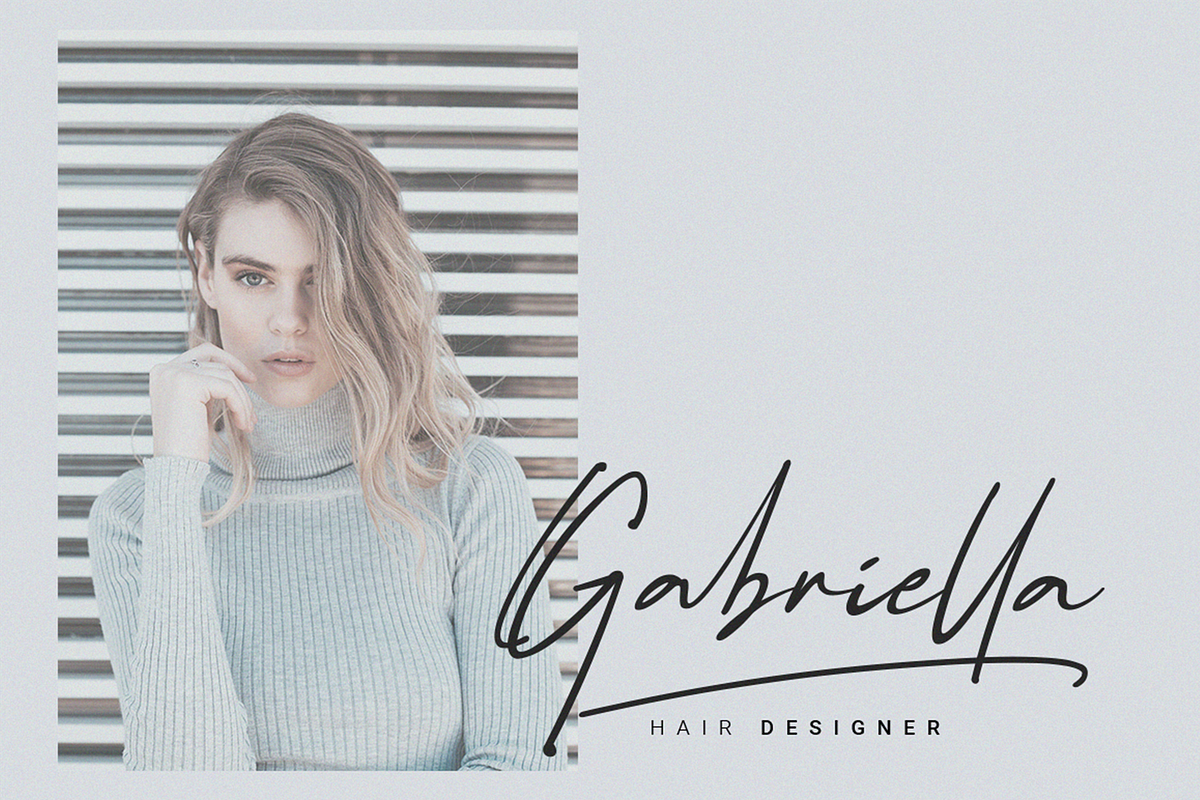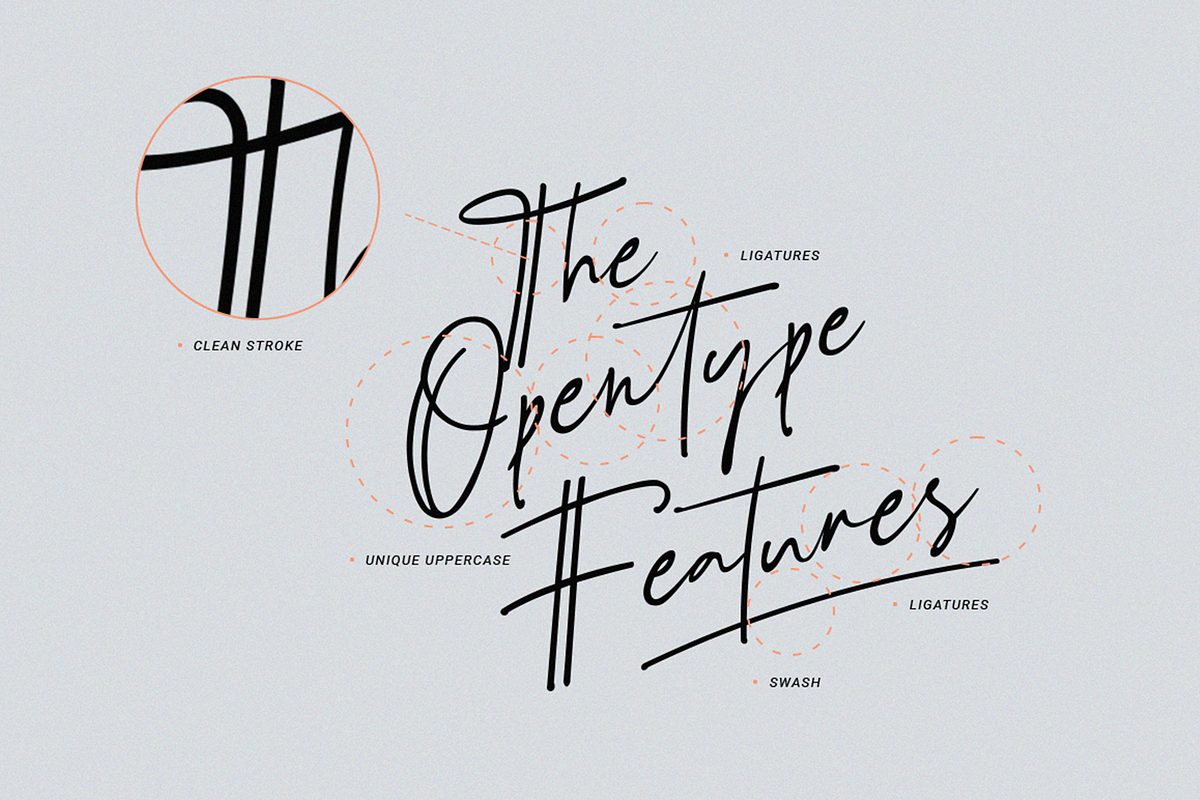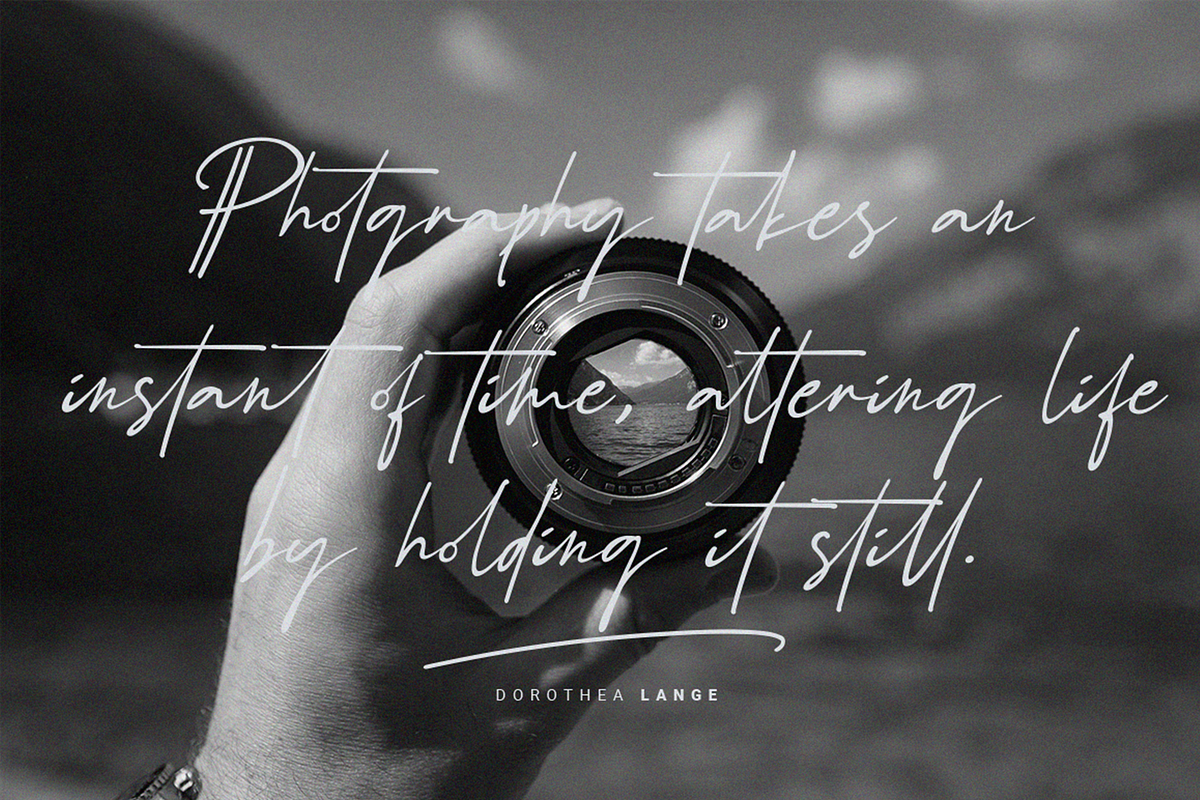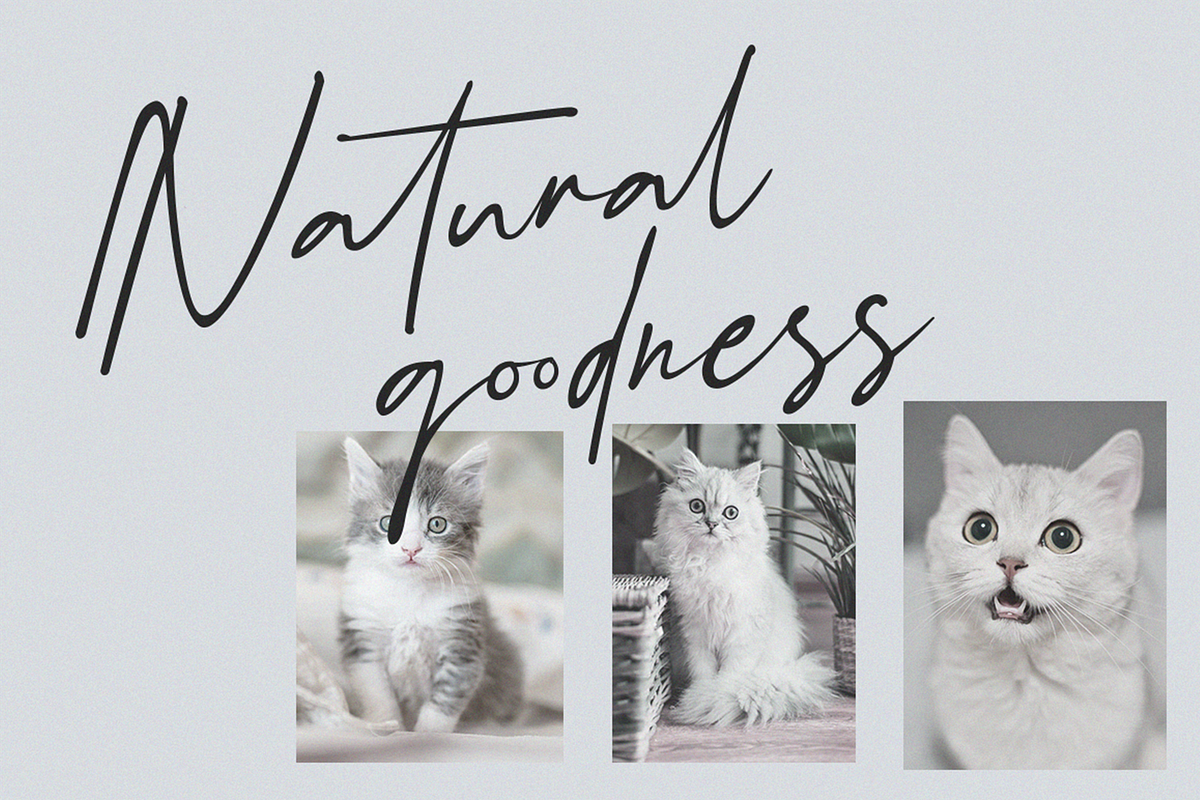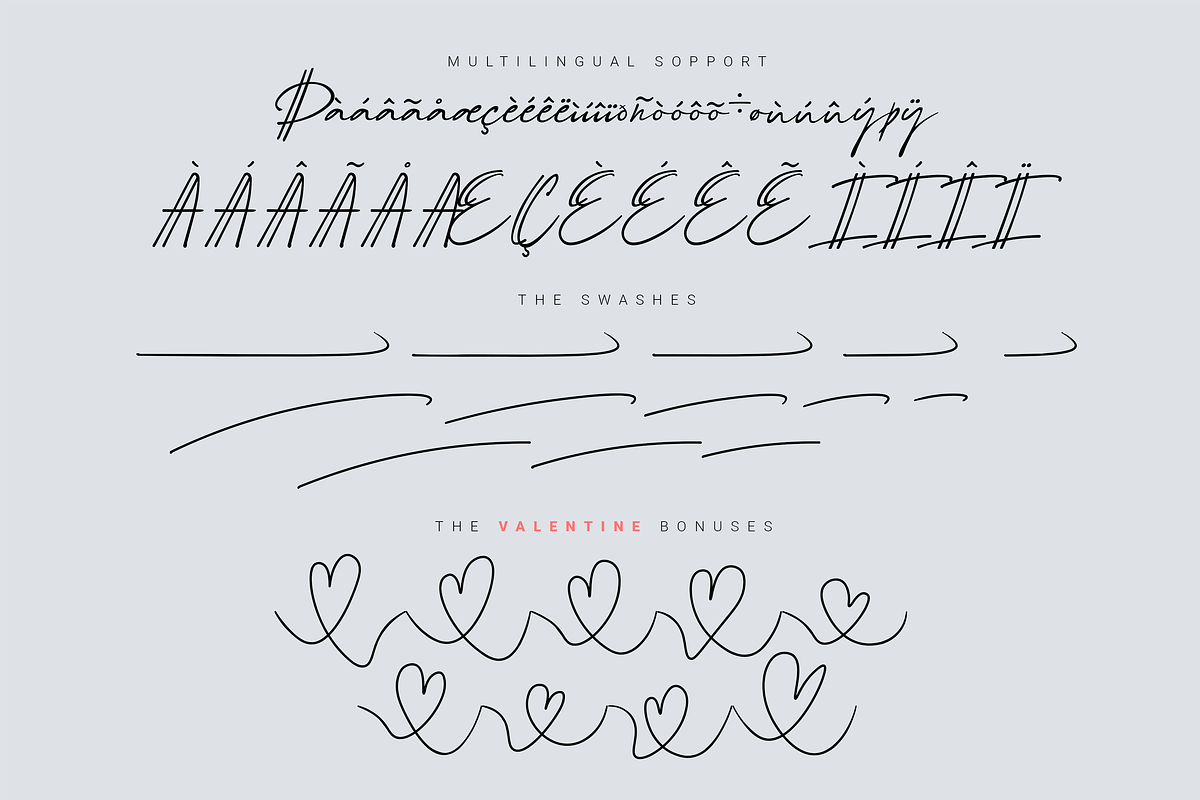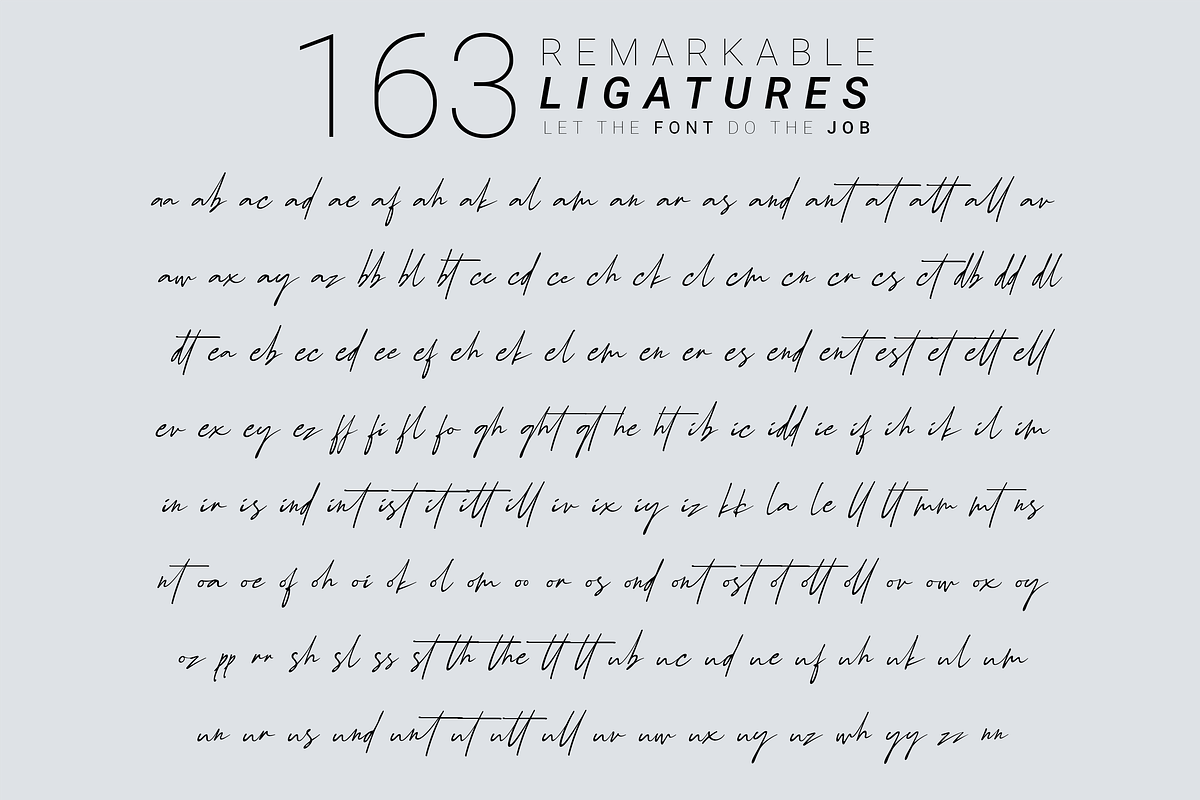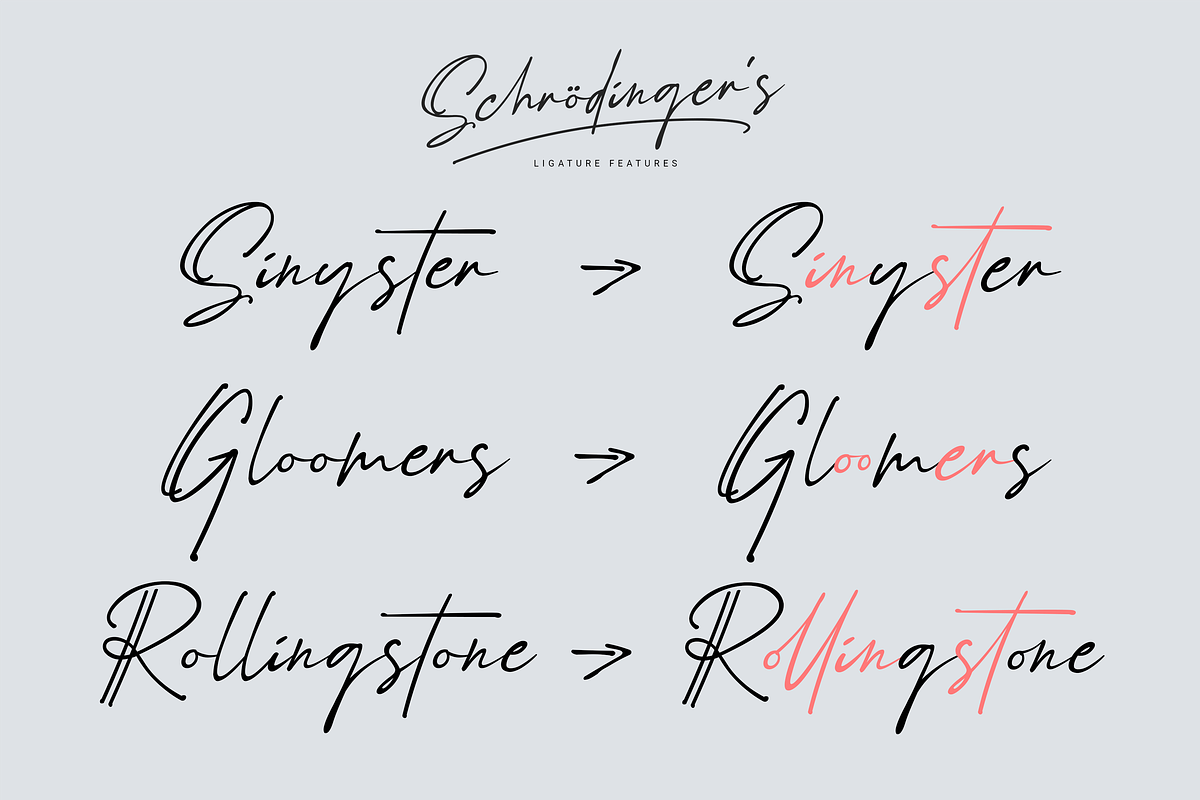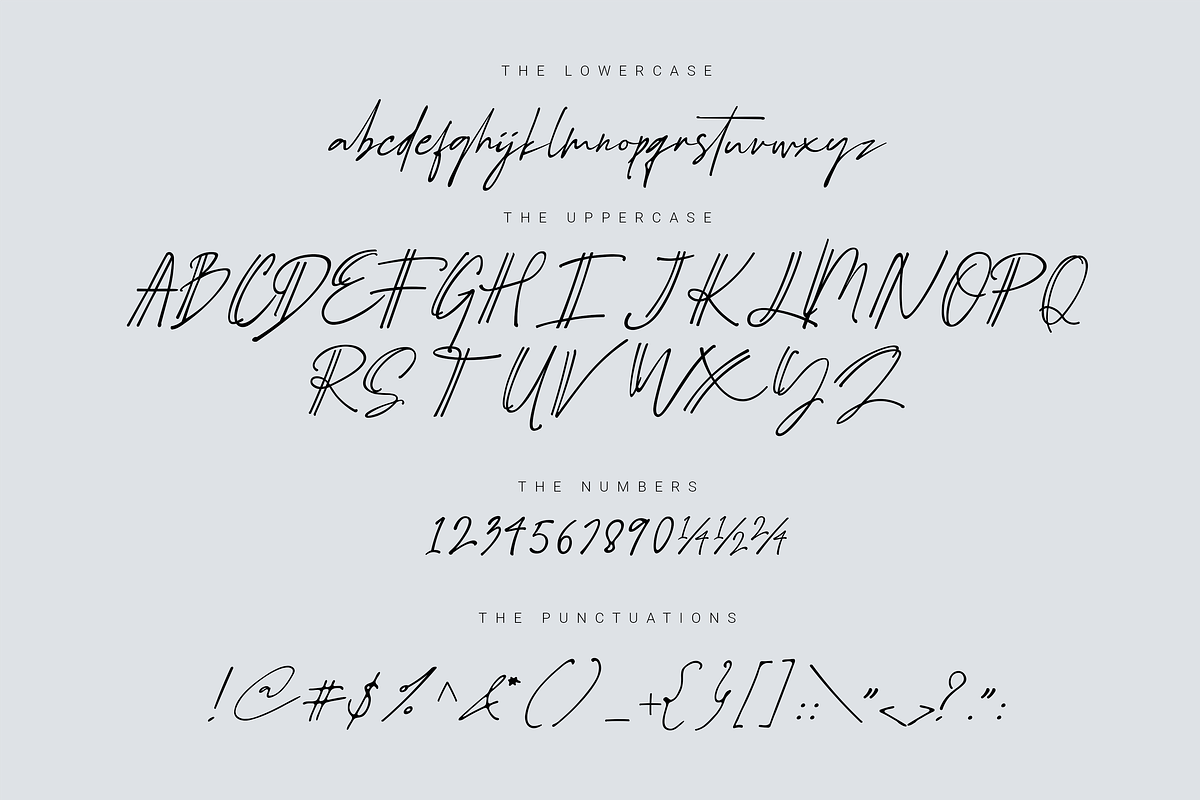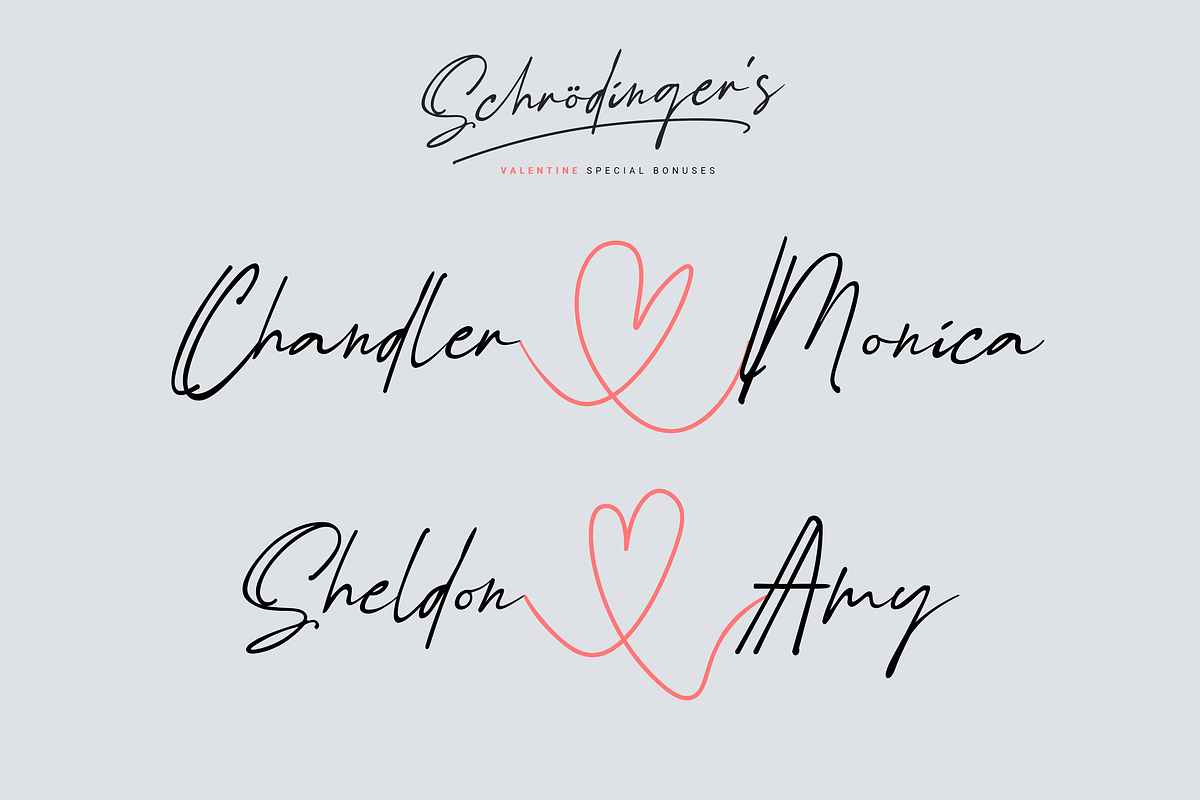
Schrödinger's | Signature Font
Schrödinger's is a remarkable signature font that was made hand-drawn manually using a Hitech-C pen, This typeface is very natural-like and makes your design stand out! Schrödinger's is perfect for gorgeous logos, cards, quotes, posters, wedding invitations, blog posts, social media, and more!
To keep it more natural-like, we provide you with hundreds of ligatures! Schrödinger's font contains following ligatures:
aa ab ac ad ae af ah ak al am an ar as and ant at att all av aw ax ay az bb bl bt cc cd ce ch ck cl cm cn cr cs ct db dd dl dt ea eb ec ed ee ef eh ek el em en er es end ent est et ett ell ev ex ey ez ff fi fl fo gh ght gt he ht ib ic idd ie if ih ik il im in ir is ind int ist it itt ill iv ix iy iz kk la le ll lt mm mt ns nt oa oe of oh oi ok ol om oo or os ond ont ost ot ott oll ov ow ox oy oz pp rr sh sl ss st th the tl tt ub uc ud ue uf uh uk ul um un ur us und unt ut utt ull uv uw ux uy uz wh yy zz nn
Not only that, we also include swashes and love swashes for those who are interested in valentine's stuff!
Schrödinger's features:
A full set of upper & lowercase characters
Multilingual language support
PUA Encoded Characters
+418 Glyph
Up to 163 Ligatures
Swashes
OpenType Features